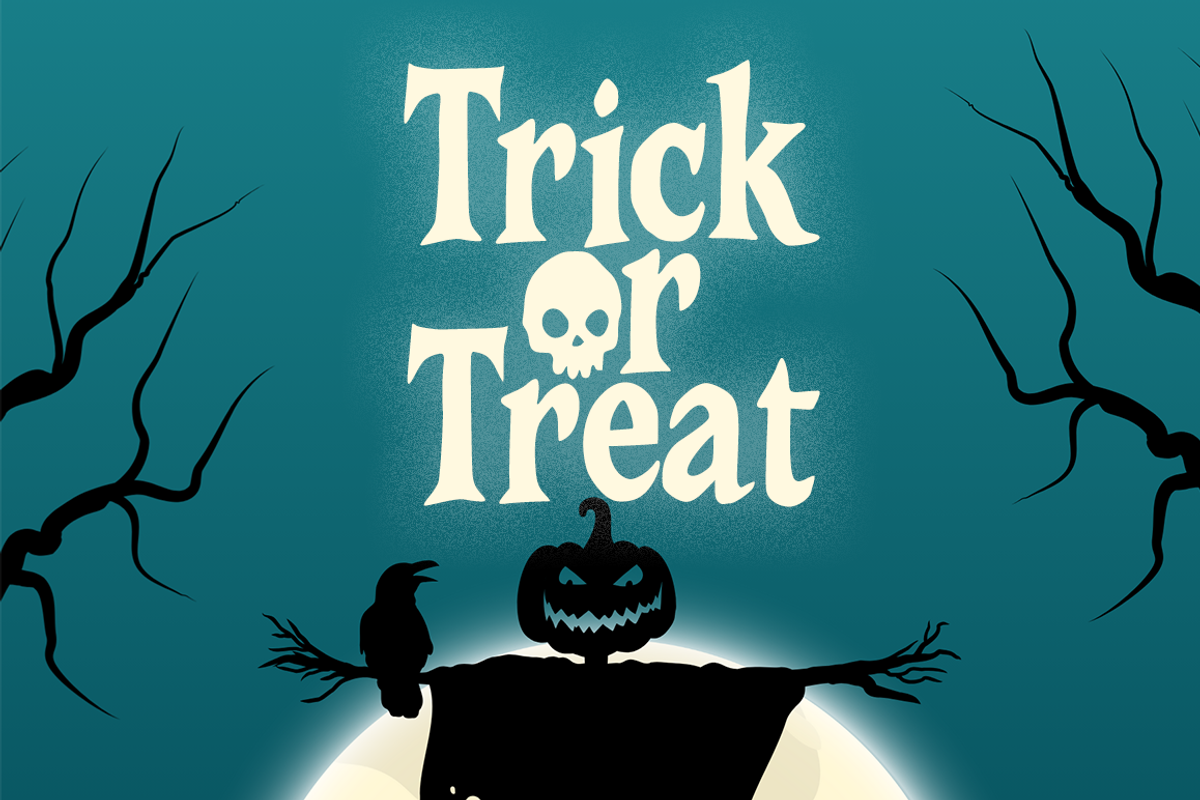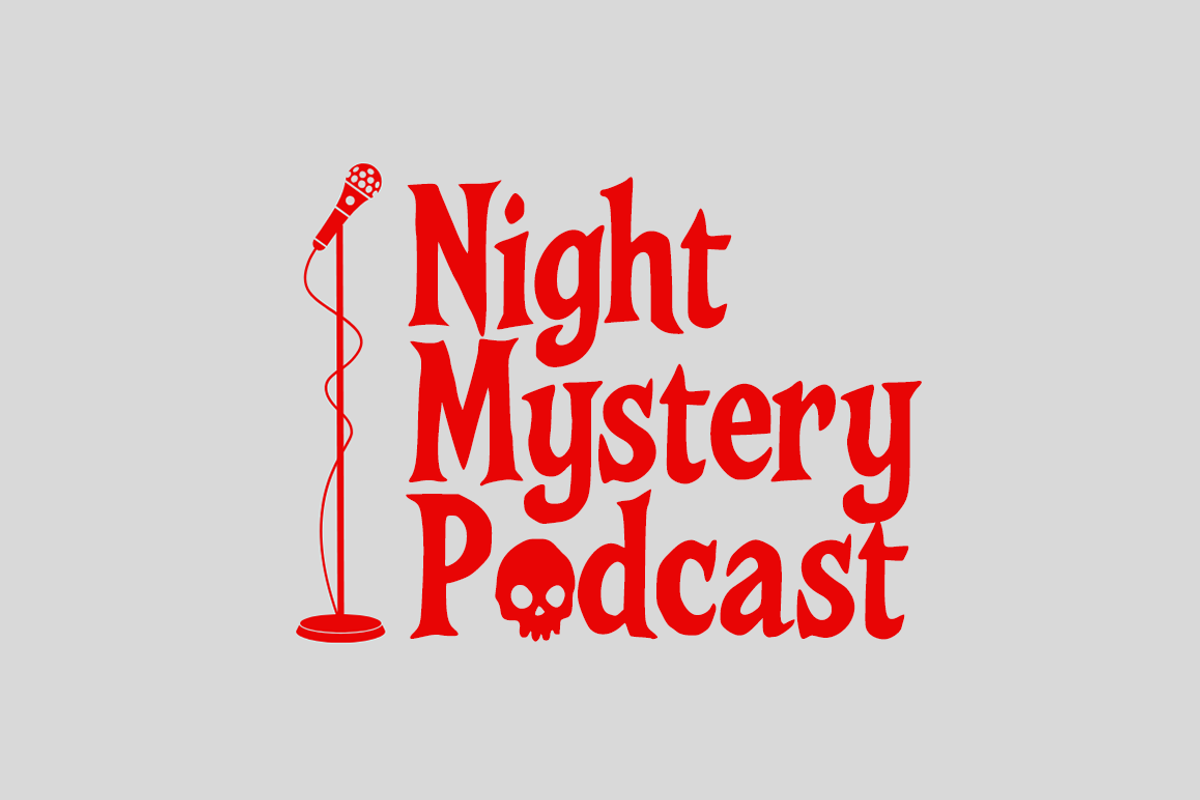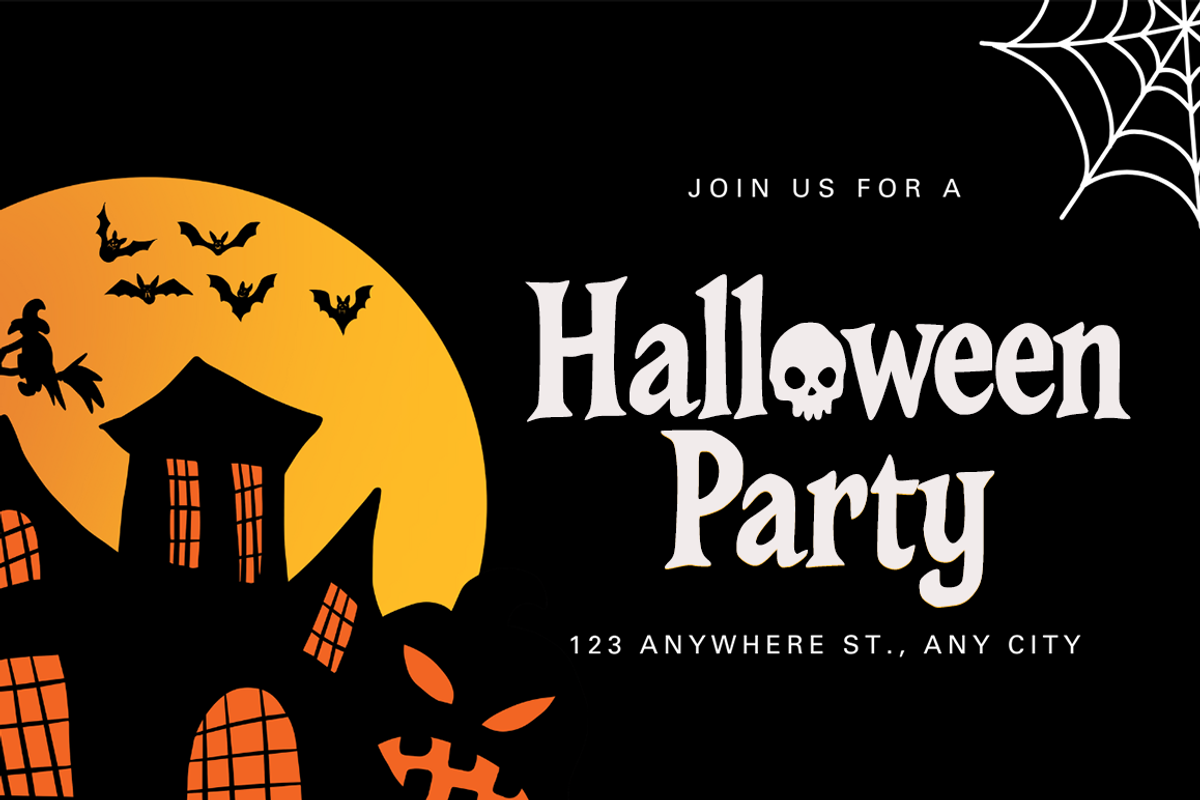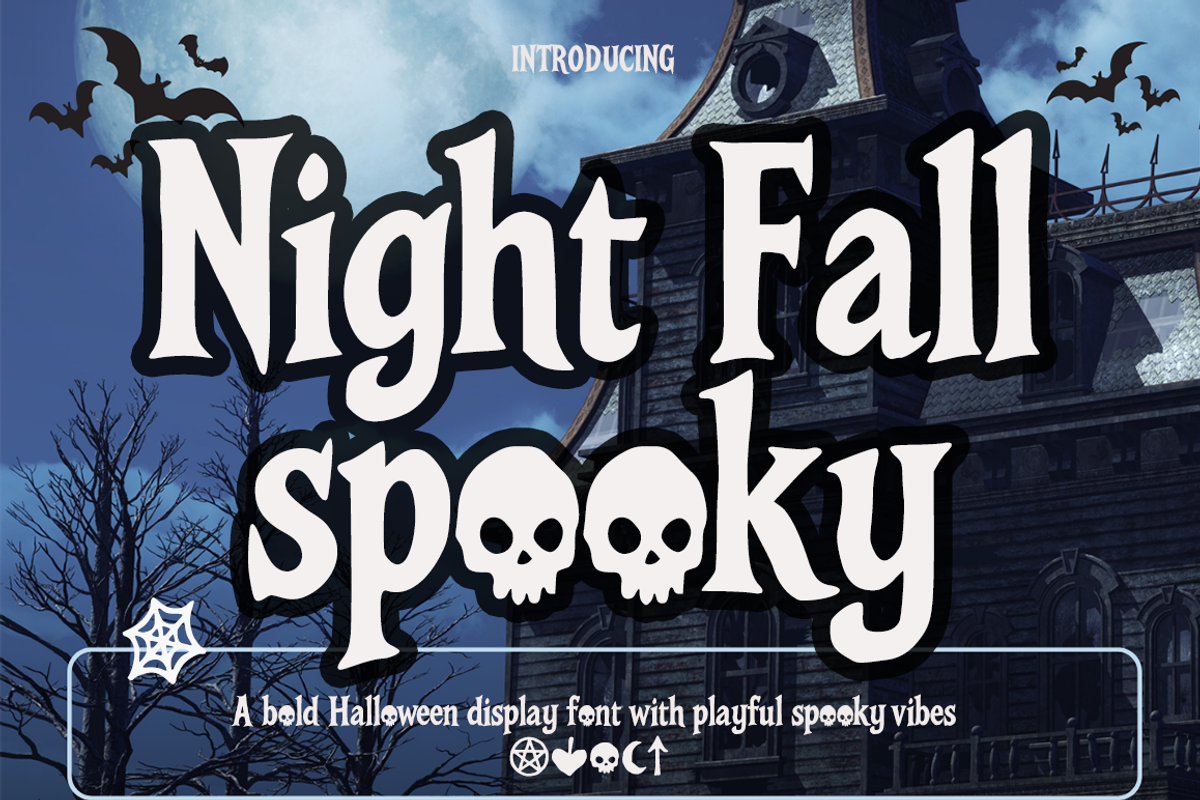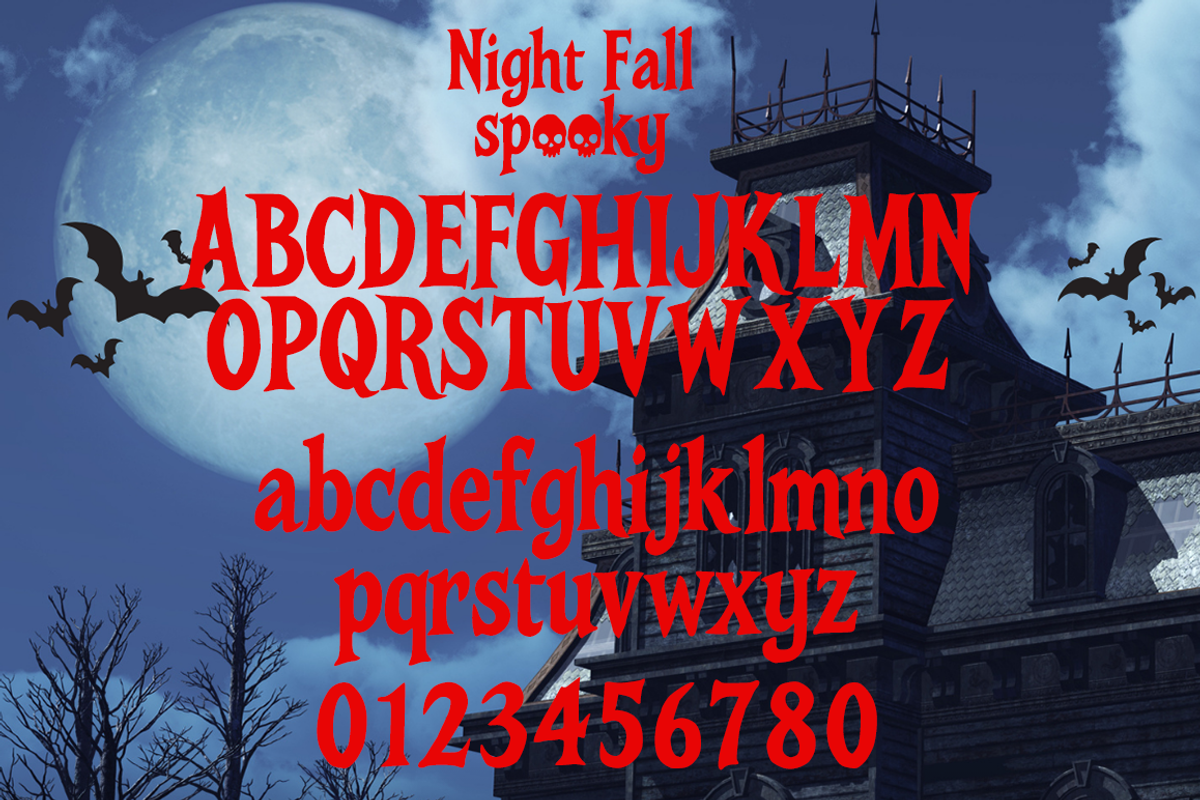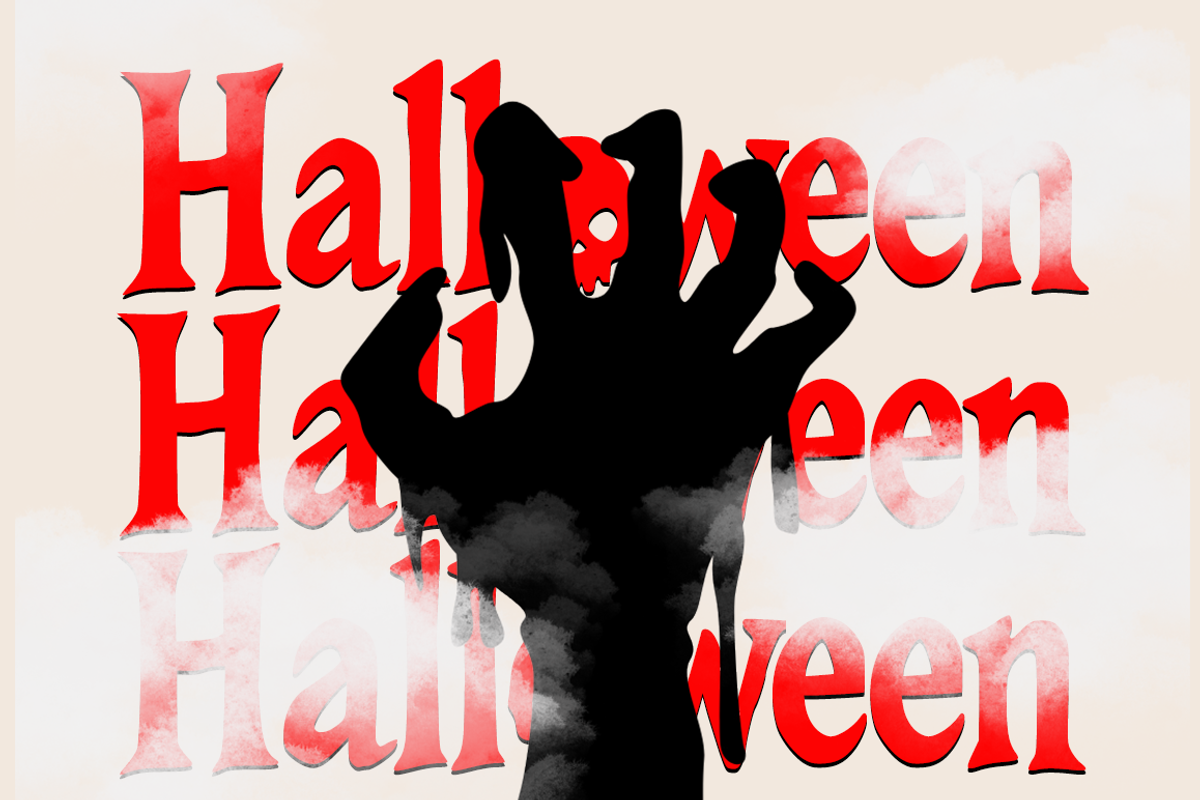
Night Fall Spooky
Night Fall Spooky – Bold Halloween Display Font + Bonus Spooky Extra Night Fall Spooky is a bold display font with playful spooky vibes, perfect for creating fun and eerie Halloween-themed designs.
Each letter features bold, irregular shapes with a hand-drawn touch, giving a lively and mysterious atmosphere.
This font is ideal for Halloween posters, invitations, packaging, quotes, titles, and merchandise that need a bold and festive look.